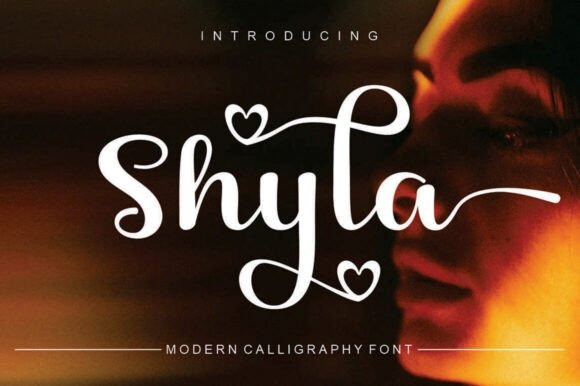
Shyla Script Font
Shyla Script Font is a modern script font featuring a classic and elegant touch. Masterfully designed to become a true favorite, this font has the potential to bring each of your creative ideas to the highest level!